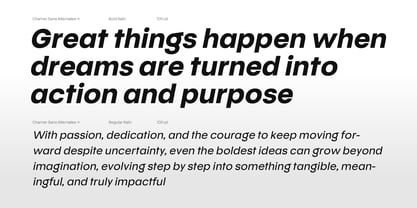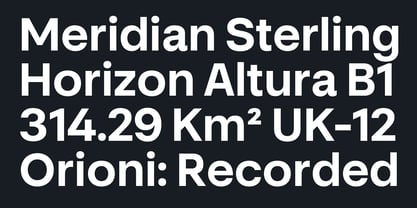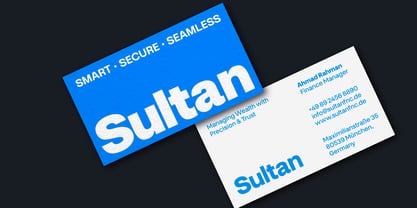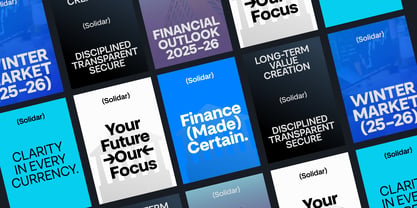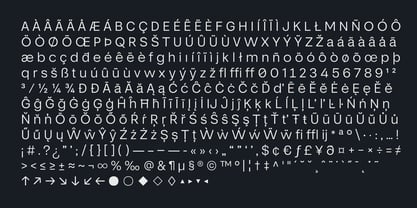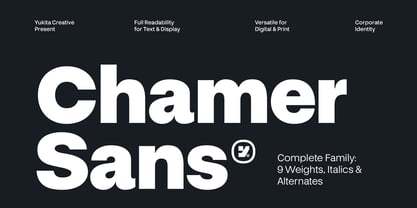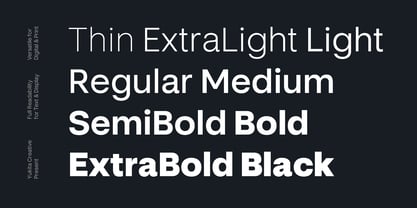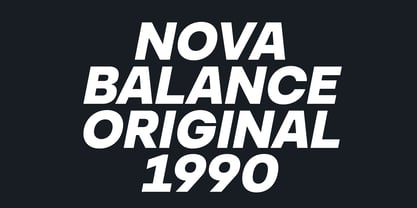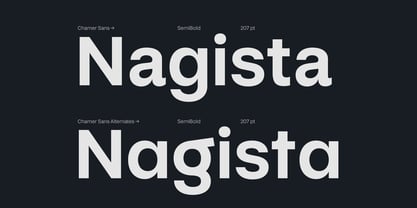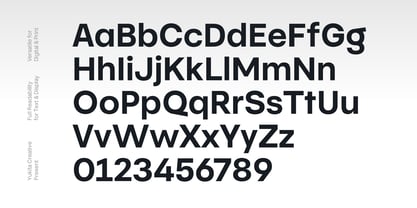
Chamer
by Yukita Creative
The Chamer Font Family was designed by abdul artega, Yukita Creative and published by Yukita Creative. Chamer contains 36 styles and family package options. More about this family
Chamer is a modern sans-serif font family with a refined grotesk touch, designed to deliver full readability across digital and print environments. Built for professional designers, creative agencies, and large-scale brands, Chamer combines clarity, flexibility, and contemporary precision in one powerful type system.
With 9 balanced weights plus matching italics, Chamer offers maximum typographic control—from elegant thin styles to bold corporate impact. Its clean structure and open letterforms make it ideal for technology branding, corporate identity, UI/UX, logos, editorial, and high-end commercial projects that demand a professional and highly versatile sans-serif family.
• 9 Weights from Thin to Black
• Complete Italic Set
• Modern Grotesk Style
• Full Readability for Text & Display
• Clean and Professional Letterforms
• Versatile for Digital & Print
Designers: abdul artega, Yukita Creative
Foundry: Yukita Creative